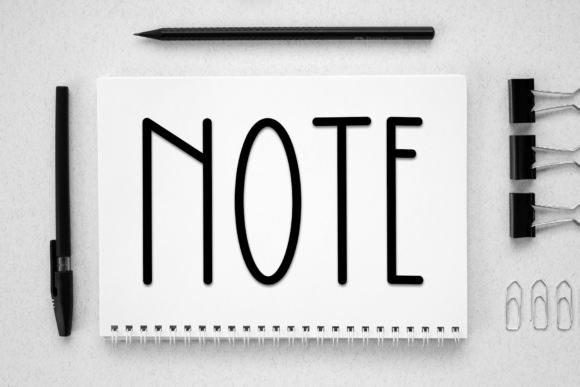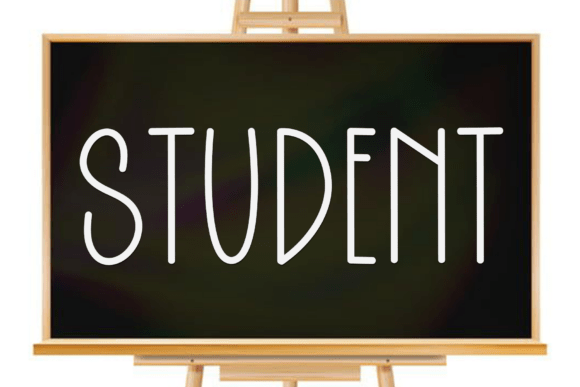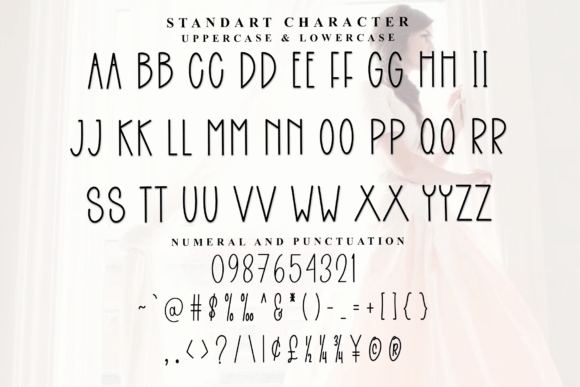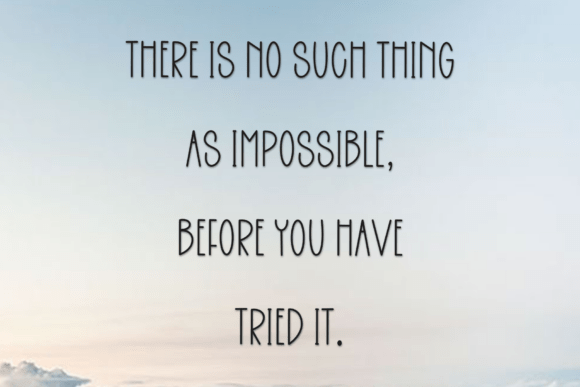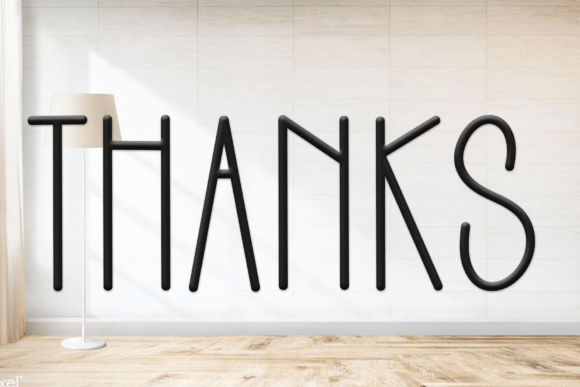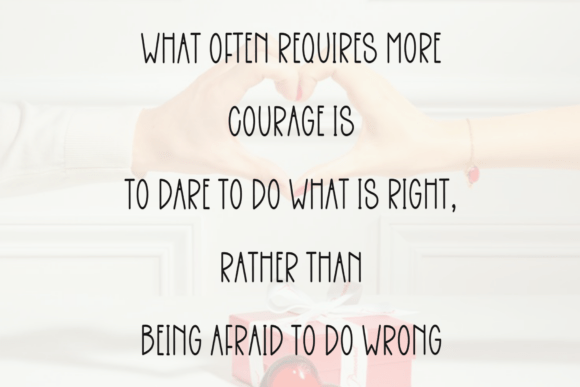
Introducing Digital Bookmark Font: Elevate Your Designs with a Unique Touch
In the realm of digital design, typography plays a crucial role in conveying messages, evoking emotions, and capturing attention. Among the myriad of fonts available, Digital Bookmark stands out as a beautiful and eye-catching addition to any design project. This soft, unique font is designed to leave a lasting impression, making it perfect for designers, crafters, and creative enthusiasts alike.
The Distinctive Character of Digital Bookmark
Digital Bookmark’s distinctive strokes are what set it apart from other fonts. Its special character makes it not only meaningful but also incredibly versatile for future use. Whether you’re working on a design project, crafting a unique piece of art, or exploring other creative outlets, this font is sure to enhance your work. With a wide range of characters at your disposal, the possibilities are endless.
Digital Bookmark is more than just a font; it’s a tool that can elevate your designs and crafts to new heights. Its natural, soft style makes it ideal for a variety of applications, from digital graphics and illustrations to handmade crafts and DIY projects. The font’s unique touch adds a personal and creative flair to any project, making it stand out in a crowded field.
Ideal for a Wide Range of Products
The natural style of Digital Bookmark lends itself well to a wide range of products, from digital assets like graphics and icons to physical items such as stationery, posters, and crafts. Its broad appeal ensures that your designs will resonate with a diverse audience, spanning various artistic and creative fields. Whether you’re targeting a niche market or a broader audience, this font is sure to enhance the appeal of your products.
Enhance Your Designs with Digital Bookmark
Incorporating Digital Bookmark into your designs can significantly elevate their aesthetic appeal. The font’s soft, unique touch adds a layer of sophistication and creativity, making your work more engaging and memorable. For designers and crafters looking to make a lasting impression, Digital Bookmark is an invaluable resource.
Why Choose Digital Bookmark?
- Unique and Eye-Catching: Digital Bookmark’s distinctive strokes and soft style make it a standout in the world of typography.
- Versatile: Perfect for a wide range of design projects, crafts, and creative works.
- Broad Appeal: Suitable for products targeting diverse audiences across different artistic and creative fields.
Digital Bookmark is more than just a font; it’s a creative tool that can transform your designs and crafts. Its unique touch, versatility, and broad appeal make it an excellent choice for designers and crafters looking to elevate their work. By incorporating Digital Bookmark into your projects, you’re not just adding a font; you’re adding a special character that can make your designs more engaging, memorable, and impactful. Explore the possibilities with Digital Bookmark and discover how it can enhance your creative endeavors.